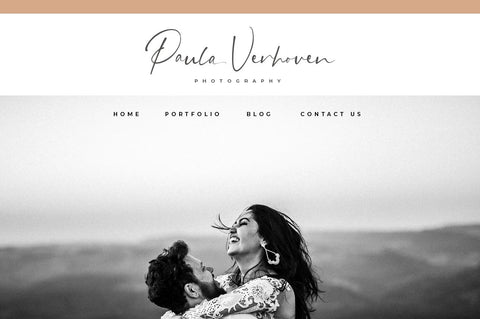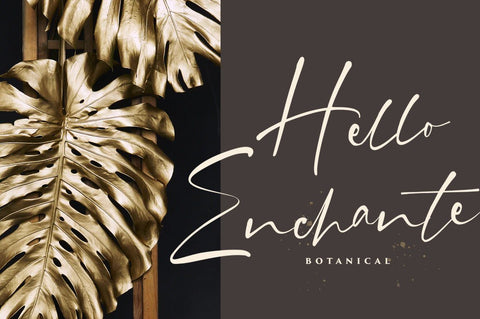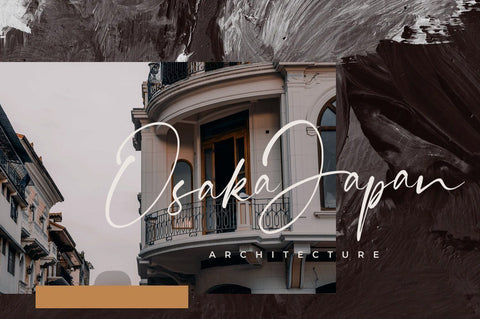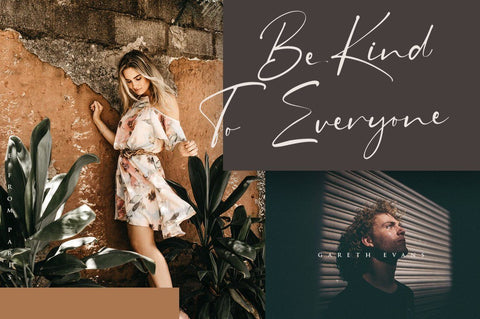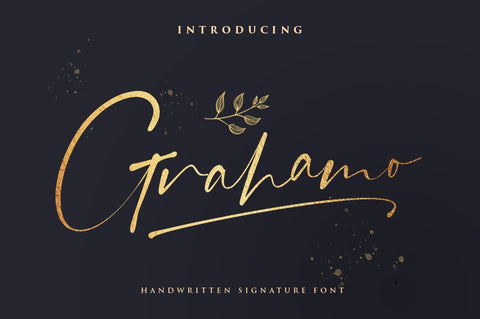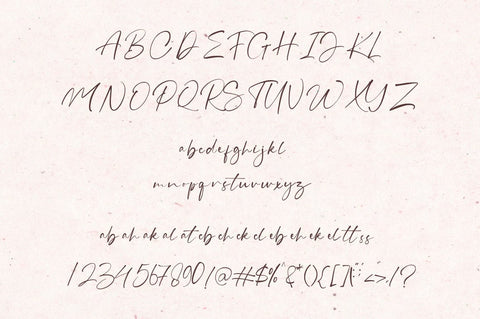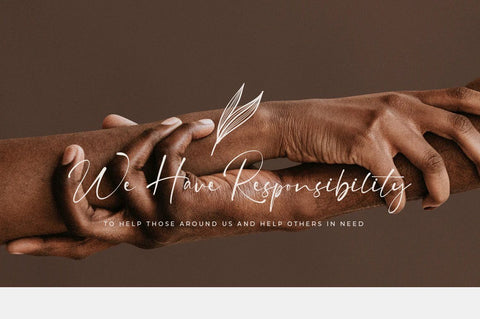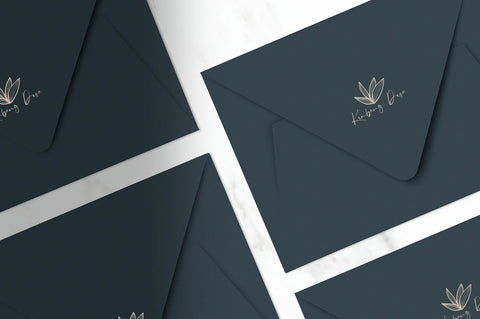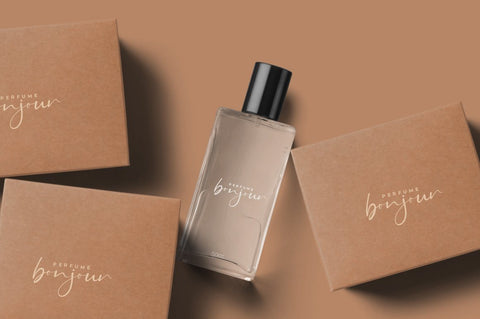
Grahamo - Luxury Signature Font
Say hello to Grahamo Luxury Script
Grahamo Font is luxury script with modern touch and beautiful ligature and alternate font.
It easily cooperating together For Magazine, Movies, or Book Titles. For Photography, Wedding Invitation, Restaurant Menu or T-shirt Design. For Flyers, Banner Ads, web and printing. From Food and Fashion to a Cosmetics product